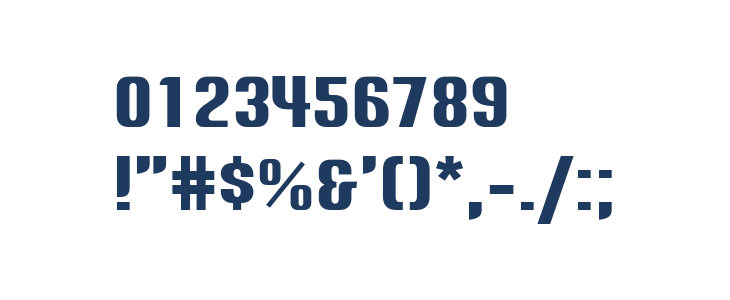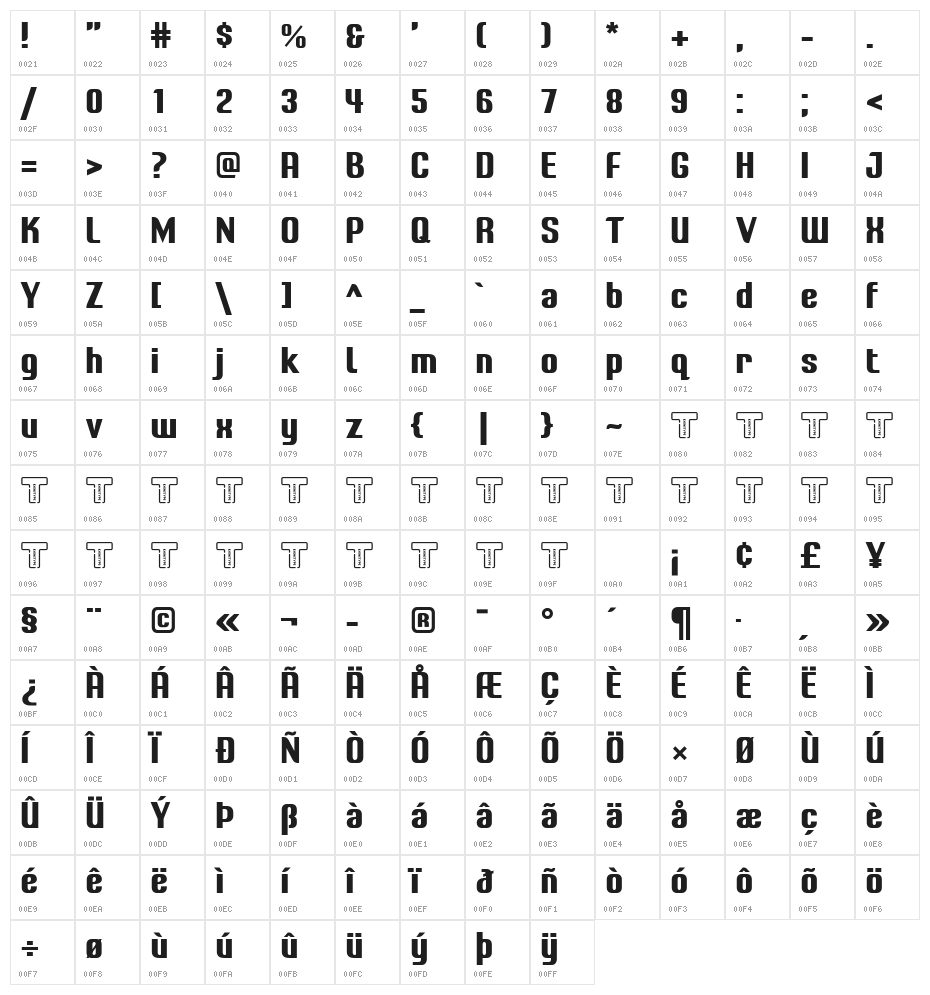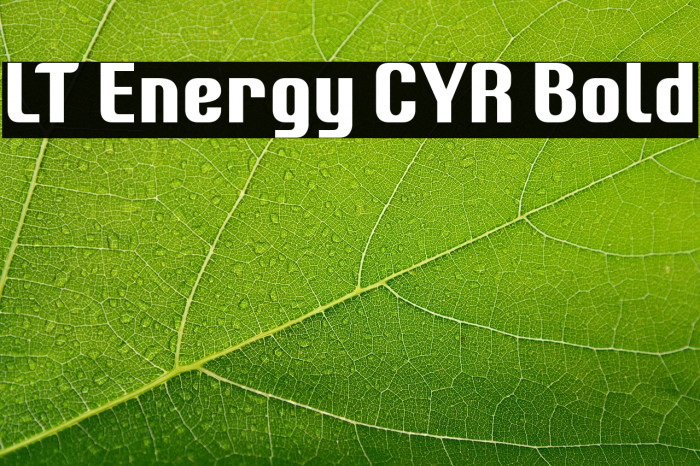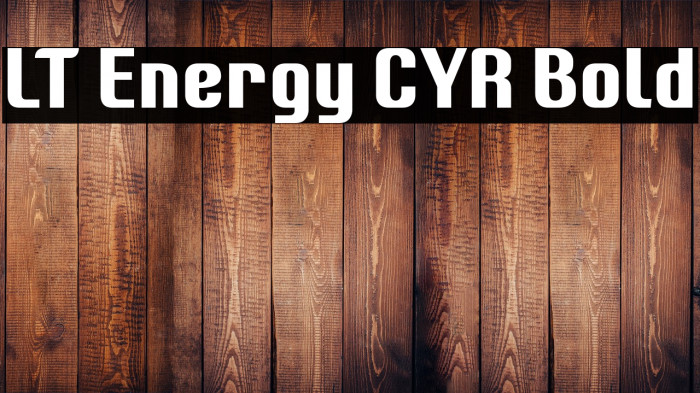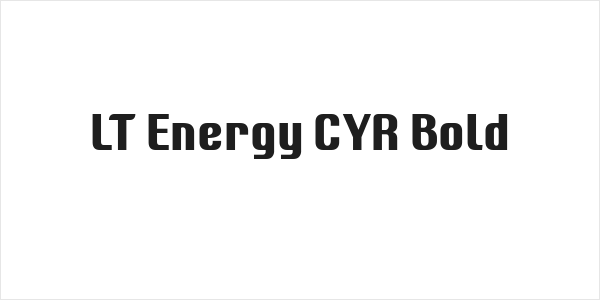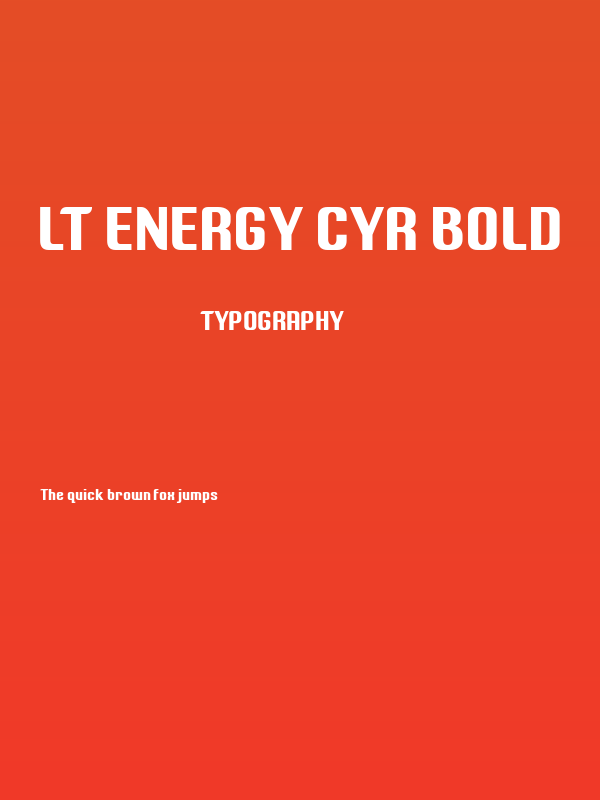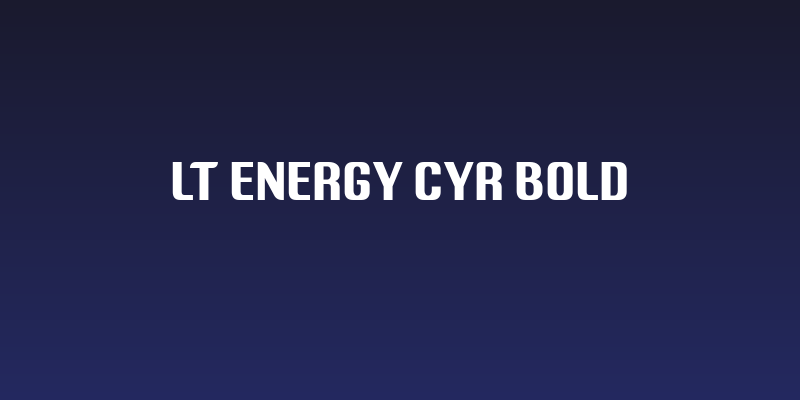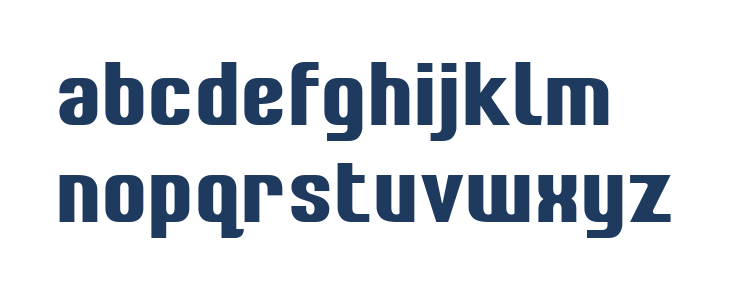
LT Energy CYR Bold Font
LT Energy CYR Bold Description
This font exhibits a bold and assertive style with strong geometric shapes and a modern aesthetic. The uppercase letters are tall and commanding, while the lowercase letters maintain a consistent width, contributing to a uniform appearance. The numerals are clear and robust, ensuring legibility. Special characters are designed with a similar boldness, making them stand out effectively. The overall design is clean and impactful, suitable for making statements in various design contexts.
Proposed ProjectsIdeal for branding, headlines, posters, and signage where a strong, modern presence is needed.